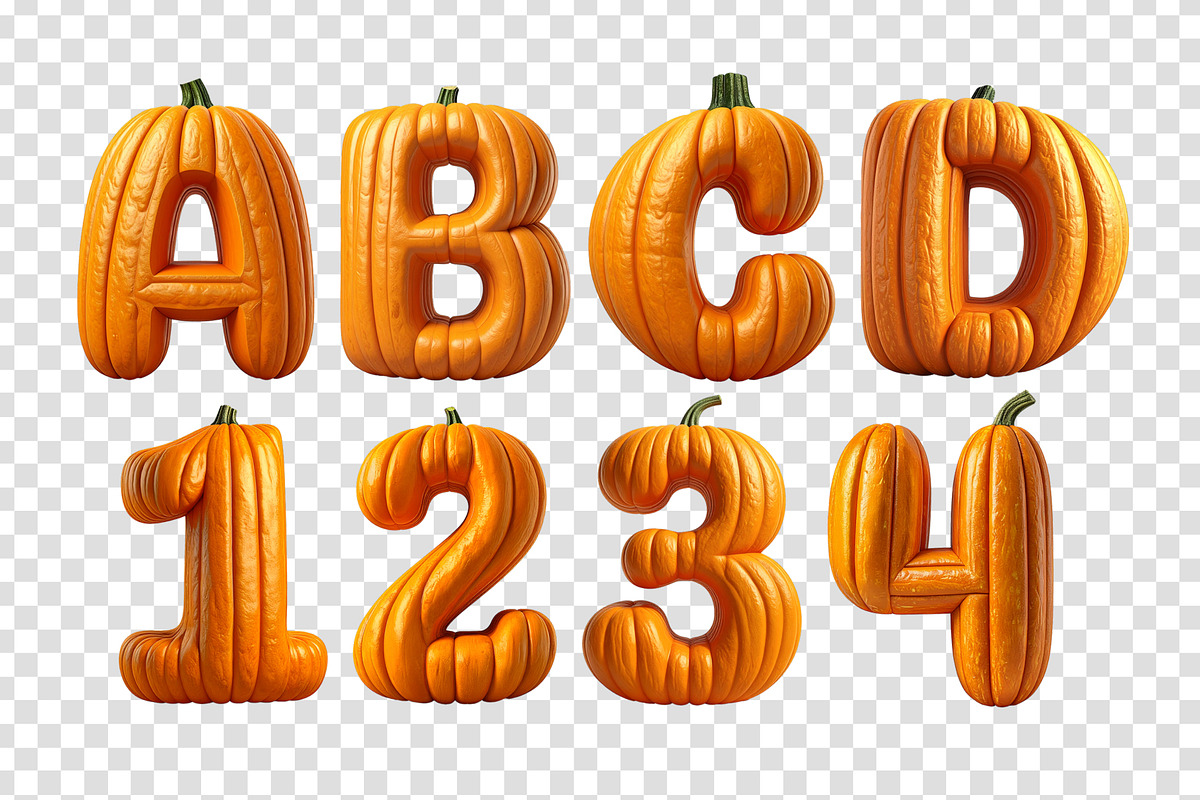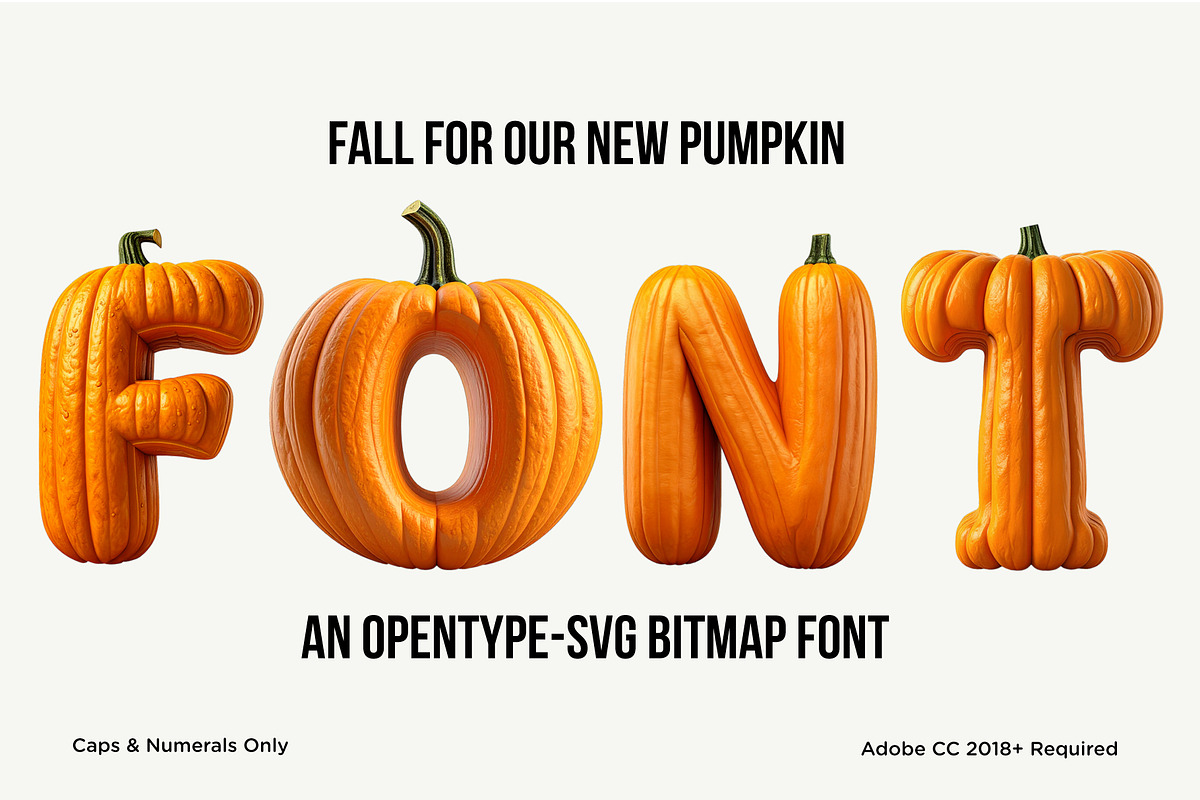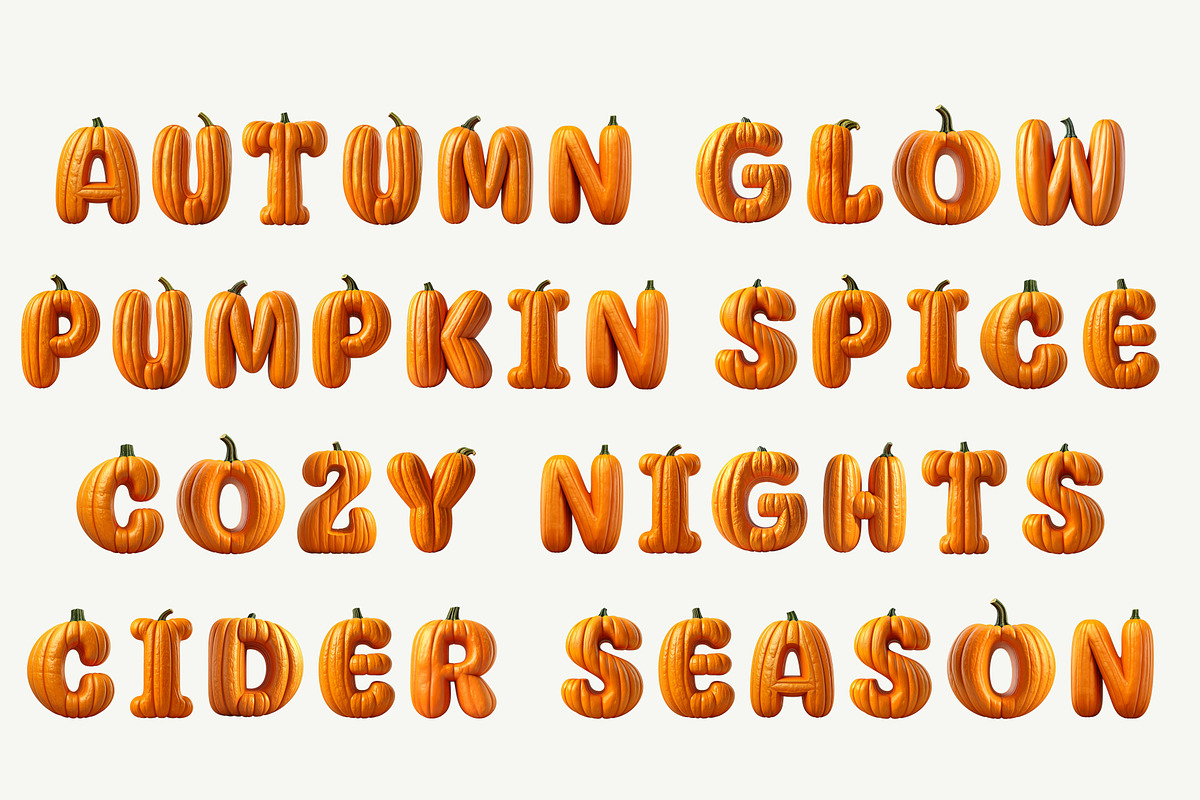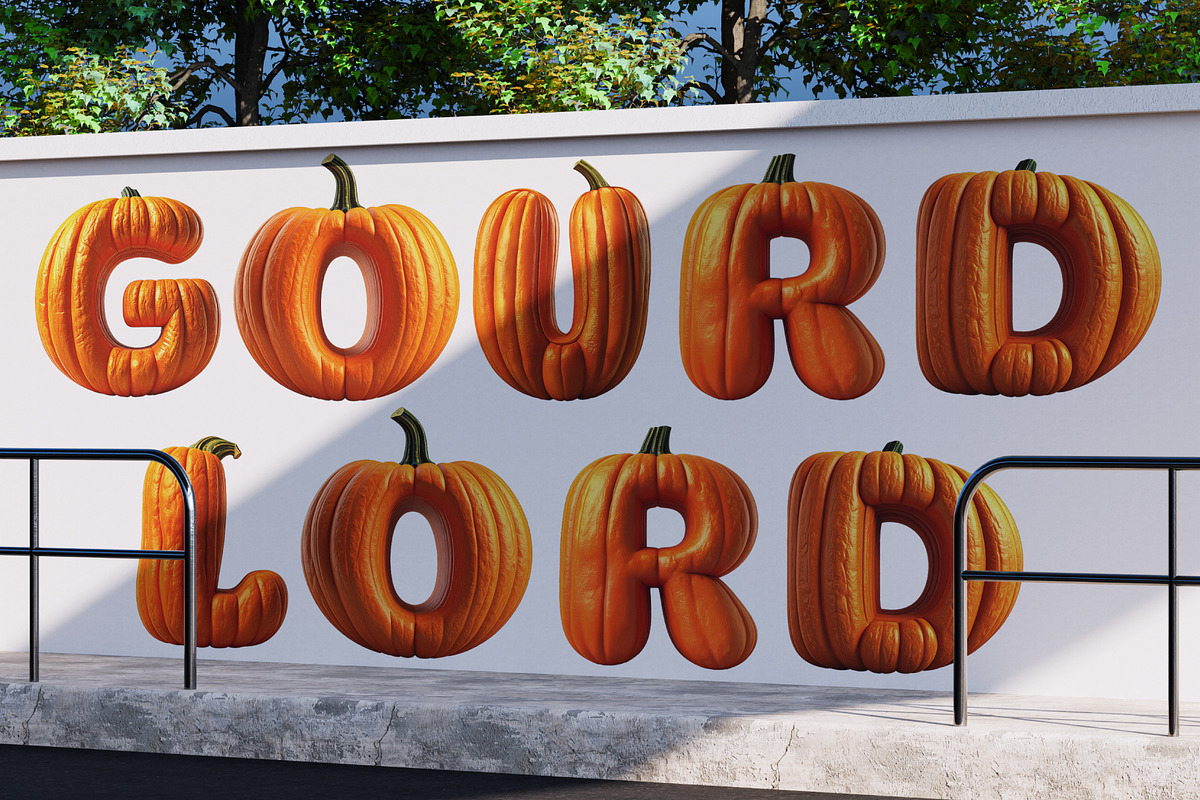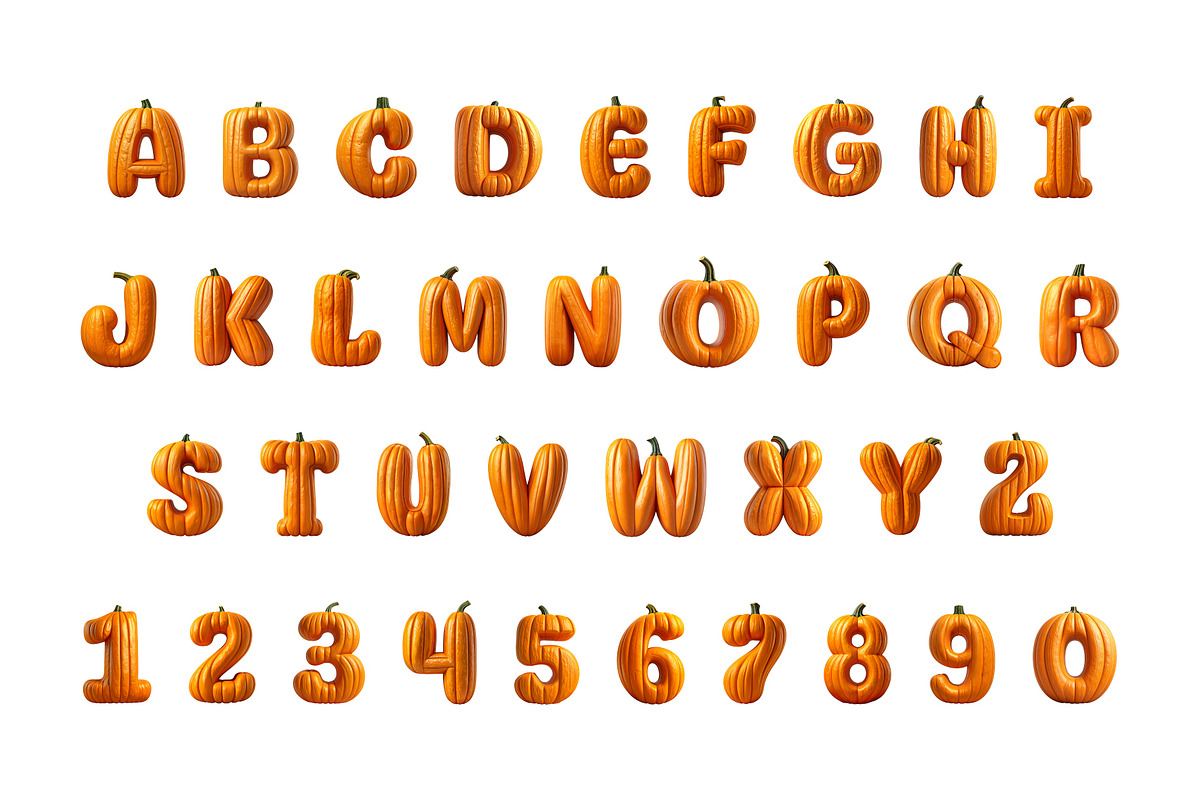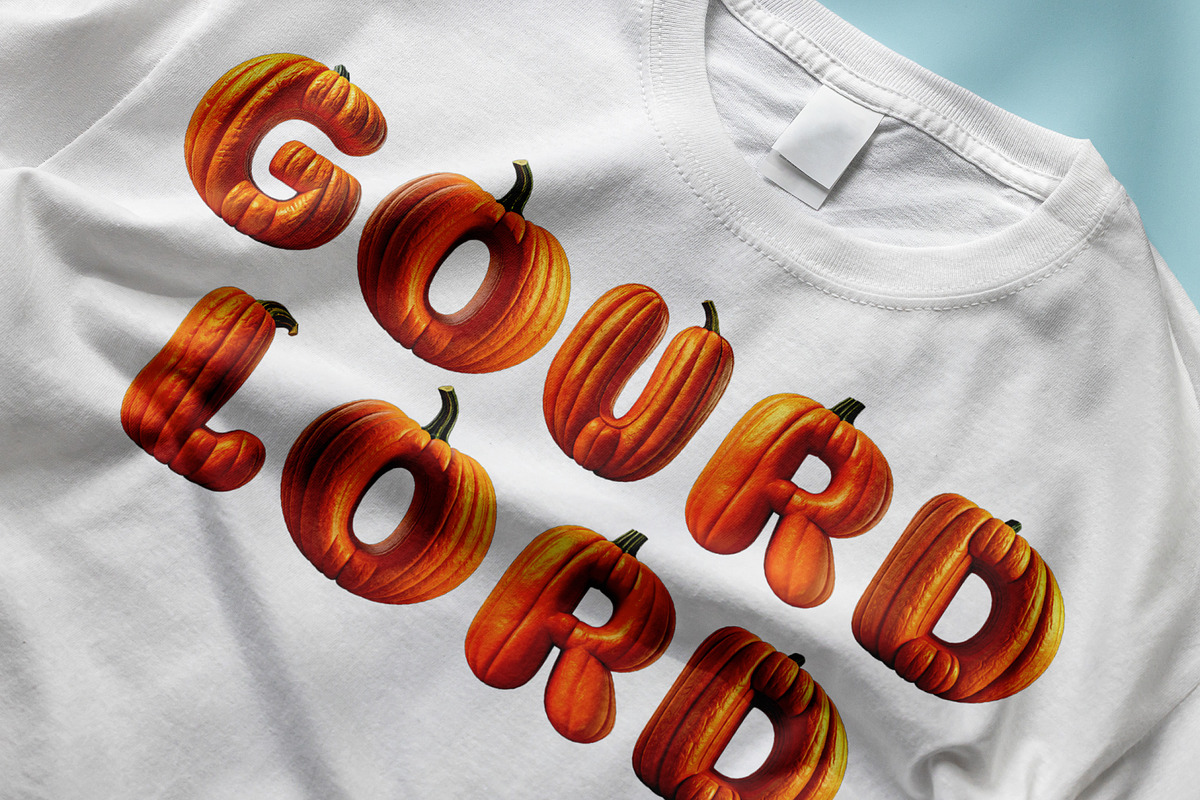
Pumpkin
Pumpkin is a playful seasonal display typeface built from plump orange pumpkins, deep grooves, curved stems, and chunky organic shapes. Each character looks carved from a fresh pumpkin, with glossy skin, natural ribbing, dimensional shading, and little stem details that make every glyph feel completely unique. The result is a highly detailed 3D pumpkin font that feels fun, festive, and instantly autumnal with no additional effects required.
Use it for fall graphics, Halloween designs, Thanksgiving projects, seasonal branding, apparel and merch, posters, packaging, event flyers, social media graphics, party invitations, harvest festivals, or anything that needs a bold dose of pumpkin season. Pumpkin works best at large sizes where the texture, grooves, stems, and dimensional details can fully show. This OpenType SVG bitmap font includes uppercase letters and numerals only. Every glyph is rendered with high resolution pumpkin texture baked directly into the font file, giving you the complete dimensional look with zero effects.